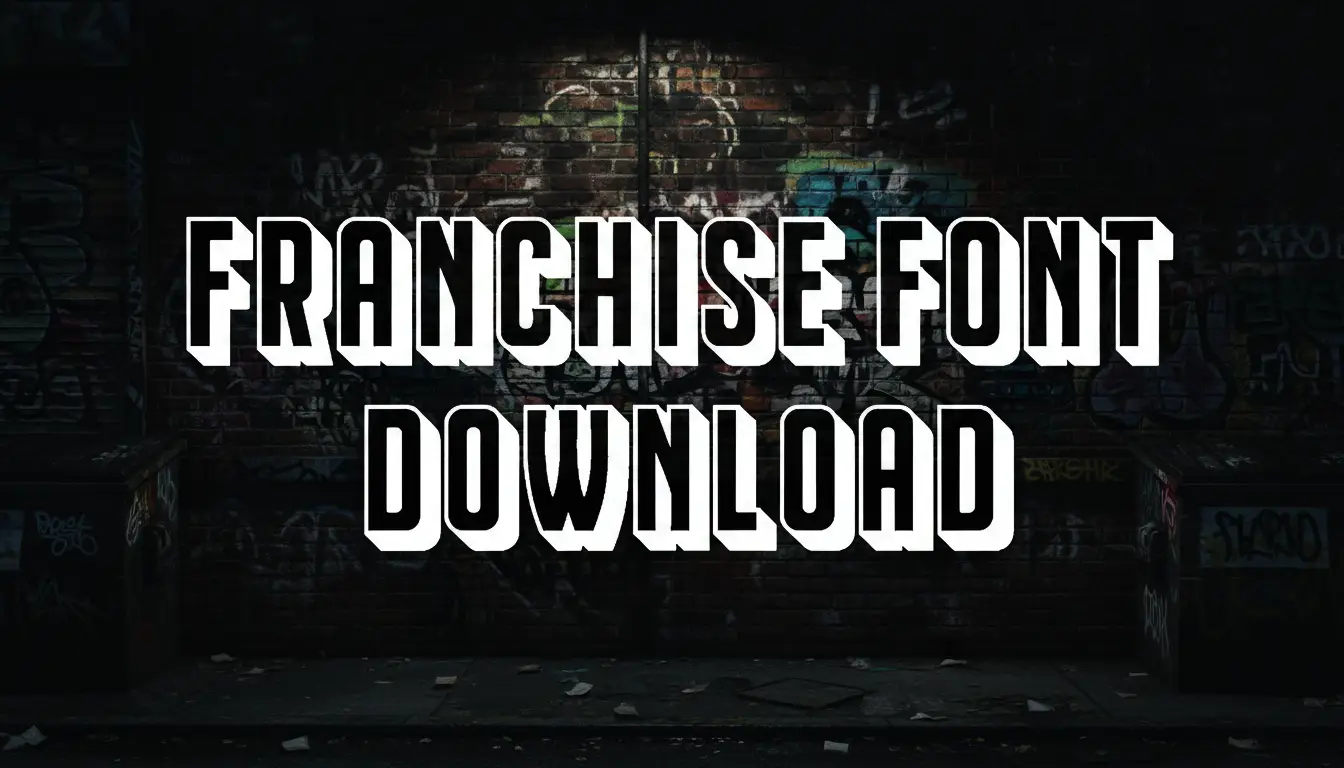
Franchise Font
Franchise is a fancy font designed by Vladimir Nikolic. Bold and full of character, it's built to stand out rather than blend in. You can download it for free and test it with your own words in the preview above.
What You Can Type With Franchise
You get every letter from A to Z in both cases and all the numbers from 0 to 9, which means Franchise can handle full sentences, dates and prices. Everyday marks like &, ! and ? are there too. There are no accented letters like é or ñ, so it's best kept to English text.
Where Franchise Works Best
Think of Franchise for posters, logos and eye-catching headlines. Use it for one standout word or headline and let simpler fonts handle the rest.
Does Franchise support accented letters?
No. Franchise has no accented letters such as é, ñ or ü, so it's best for English text.